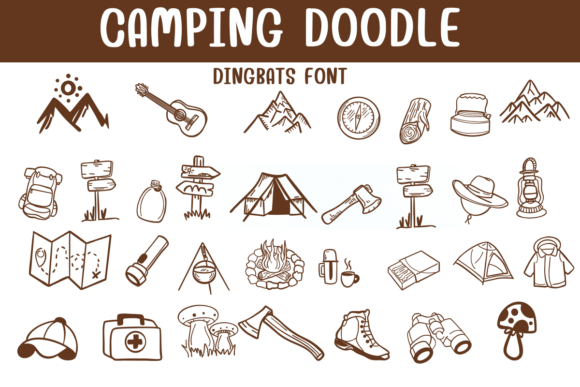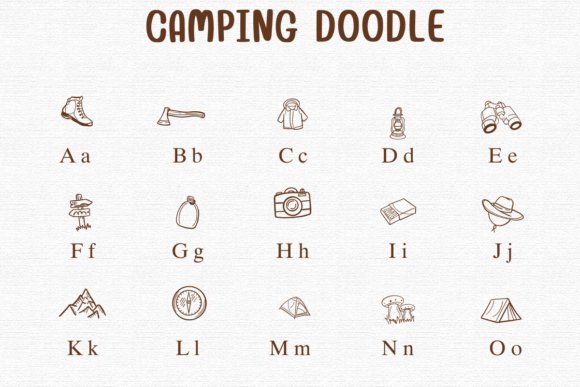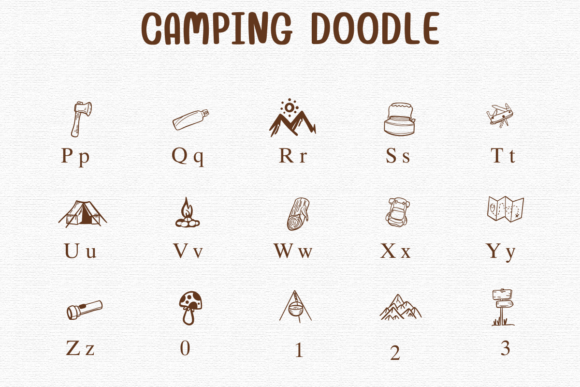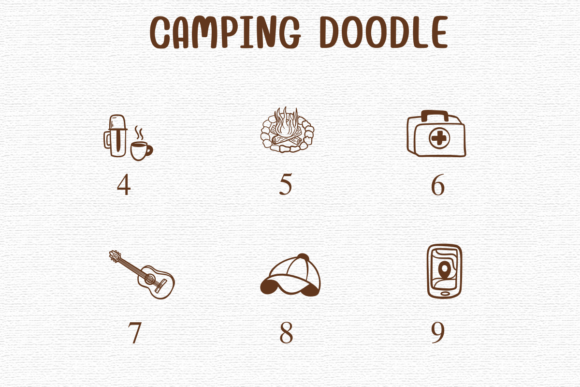
About the Camping Doodle Font
Discover the charm of Camping Doodle Font. This font is a perfect blend of modern aesthetics and classic appeal. Camping Doodle is a rustic dingbats font filled with hand-drawn camping icons like tents, backpacks, maps, campfires, tools, and nature gear. Perfect for outdoor event flyers, adventure blogs, or nature-themed merchandise, it captures the spirit of the great outdoors.
Camping Doodle’s playful, hand-drawn style works best in headlines, logos for outdoor brands, short taglines, and social media graphics. It’s ideal for projects needing a friendly, approachable feel. Avoid using it for large blocks of text or body copy; its informal nature makes it less legible for extended reading. It’s also not suitable for UI elements where clarity and precision are paramount.
Pair Camping Doodle with a clean sans-serif like Open Sans for readability in supporting text or a classic serif like Playfair Display for a touch of elegance if used in a logo. For a more rugged aesthetic, consider pairing it with a geometric sans-serif font like Montserrat.
The font’s overall personality is light-hearted and adventurous, making it perfect for brands associated with camping, hiking, or similar outdoor activities.